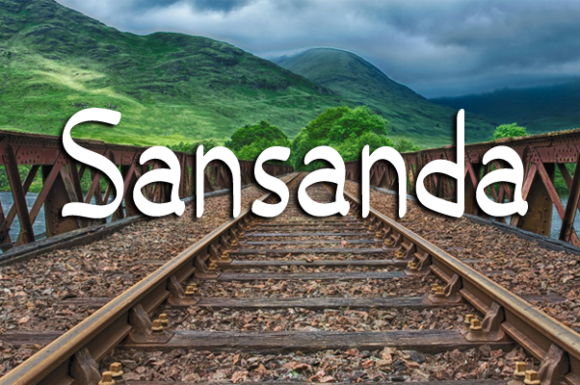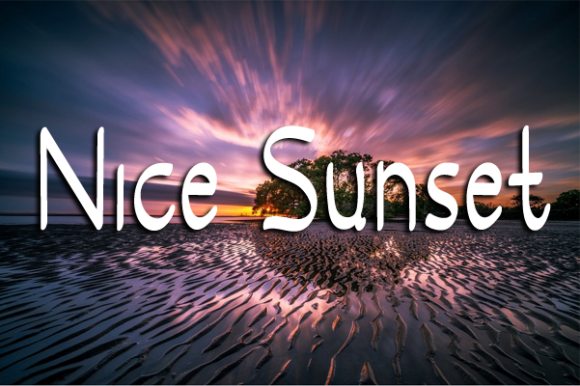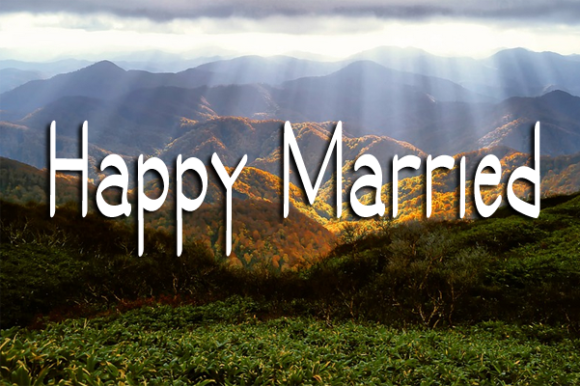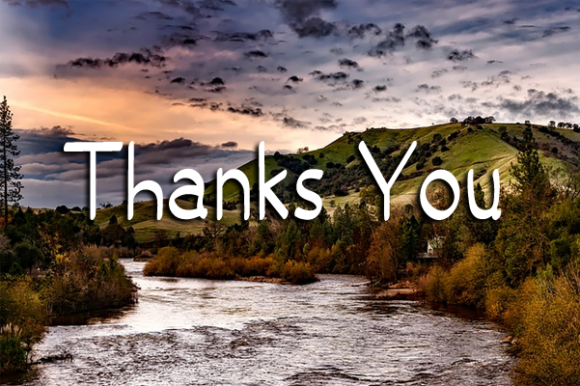
Sansanda Font
About Sansanda Font
Sansanda is a sweet and simple handwritten font. Its natural and unique style makes it incredibly fitting to a large pool of designs. The only limit is your imagination!